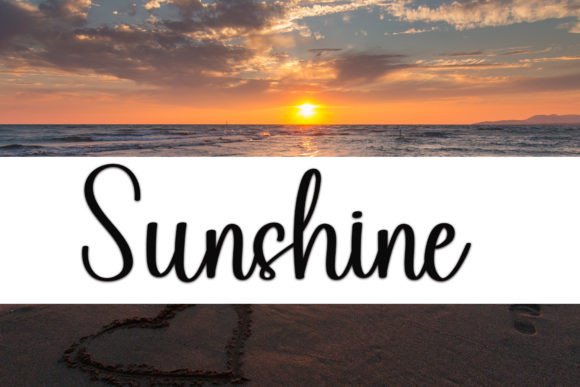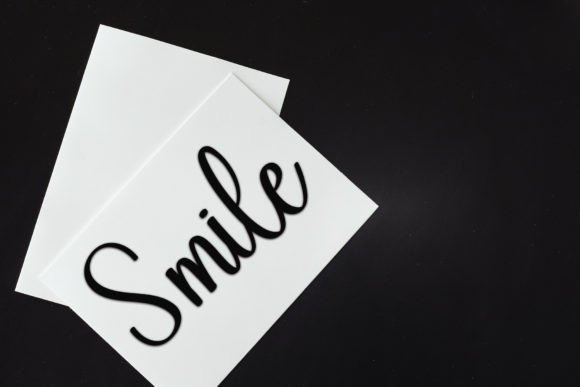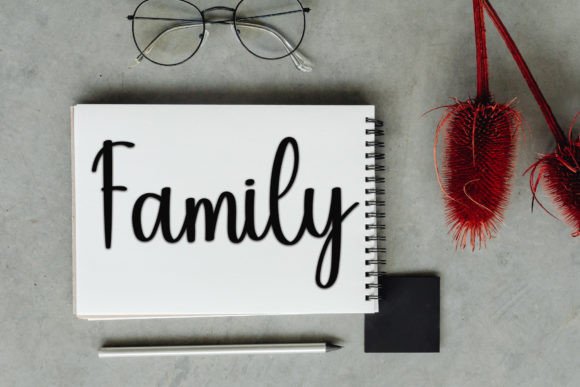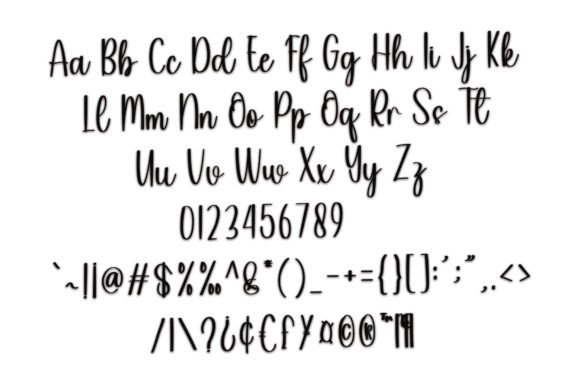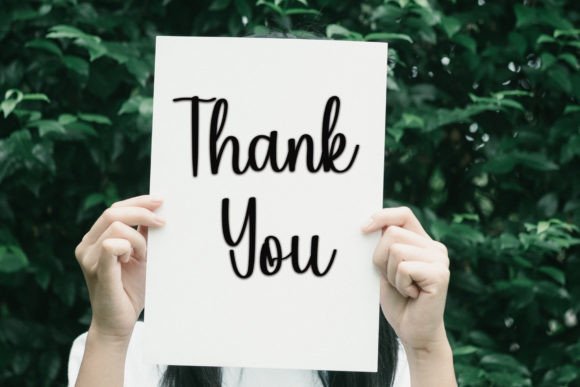
Discover the Elegance of Chaste Font: Elevate Your Designs with Timeless Style
Are you on the hunt for a font that exudes elegance, sophistication, and a touch of timeless charm? Look no further than the Chaste Font. This beautiful, handwritten font is making waves in the design community with its incredibly distinct style that’s perfect for a wide range of projects. Whether you’re a seasoned designer or a crafting enthusiast, Chaste Font is sure to capture your heart and inspire your creativity.
The Beauty of Chaste Font
Chaste Font is described by its elegant touch, which sets it apart from other fonts in its category. Its neat and beautiful handwritten style is characterized by flowing lines, subtle curves, and a sense of refinement that’s hard to find in digital fonts. The result is a font that looks like it was written with a fine pen, imbuing your designs with a personal and human touch.
One of the standout features of Chaste Font is its versatility. Whether you’re designing a logo, creating a social media graphic, or crafting a beautiful wedding invitation, this font is sure to shine. Its classic style ensures that it will never go out of fashion, making it a valuable addition to your font library.
Why Designers and Crafters Love Chaste Font
So, what makes Chaste Font so special? Here are just a few reasons why designers and crafters are falling in love with this beautiful font:
- Elegant and Refined: Chaste Font is the epitome of elegance, making it perfect for designs that require a touch of sophistication.
- Timeless Style: Unlike trendy fonts that quickly go out of style, Chaste Font has a timeless quality that ensures your designs will remain beautiful for years to come.
- Versatile: From logos and branding materials to invitations, posters, and more, Chaste Font is versatile enough to be used in a wide range of projects.
- Easy to Read: Despite its elegant style, Chaste Font is incredibly easy to read, making it perfect for body text as well as headings.
How to Use Chaste Font in Your Designs
Using Chaste Font in your designs is incredibly easy. Here are a few tips to get you started:
- Pair it with Other Fonts: Chaste Font pairs beautifully with a variety of other fonts, including sans-serif fonts for a modern look or serif fonts for a more traditional feel.
- Experiment with Colors: While Chaste Font looks stunning in black or dark colors, don’t be afraid to experiment with other colors to add a pop of personality to your designs.
- Play with Sizes: Chaste Font is beautiful in large sizes, but it’s also effective in smaller sizes, making it perfect for body text or captions.
If you’re looking for a font that will elevate your designs and add a touch of timeless elegance, look no further than Chaste Font. With its beautiful, handwritten style and incredibly distinct character, this font is sure to become a favorite in your font library. Whether you’re a designer, crafter, or simply someone who appreciates beautiful typography, Chaste Font is a must-have for anyone looking to create spectacular designs.